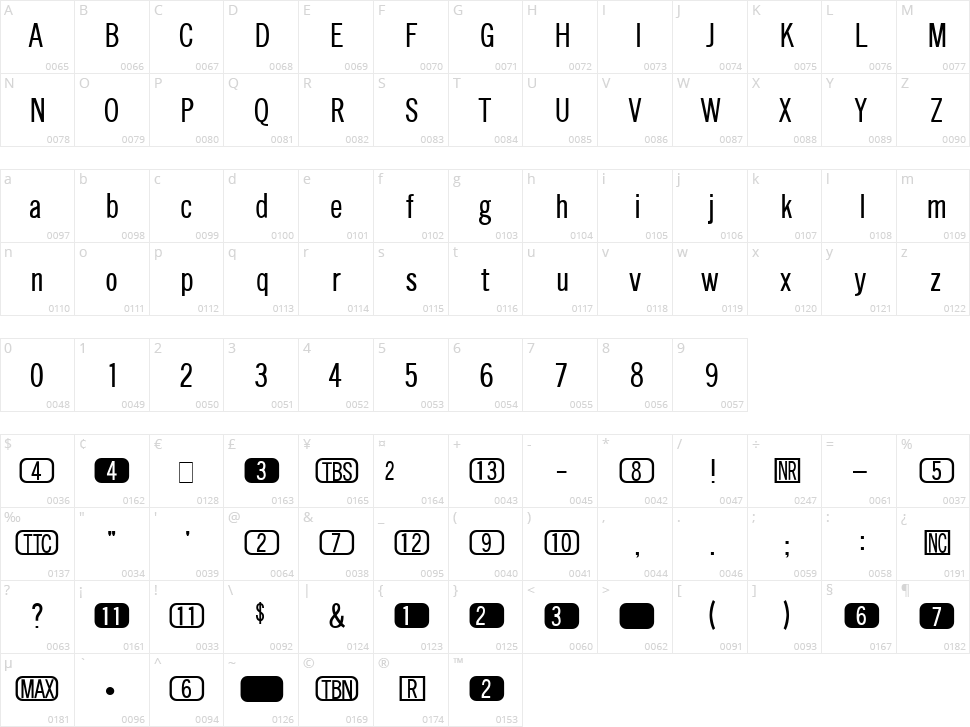
Chanl
CHANNELS is a specialized font, useful for anyone involved in printing TV listings on a regular basis. In addition to containing a very readable condensed font, it includes symbols similar to those you would find on most TV-listings pages in your daily newspaper. I had to rearrange a few keys to accommodate the cable listings the ampersand (&), exclamation mark (!), bullet () and dollar sign ($) characters. I hope this doesnt cause any severe problems.
The following cable stations are supported:
ABBREVIATIONKEYSTROKE+OPTIONSHIFT
American Christian Television SystemACTSYxx
American Movie ClassicsAMCax
Arts & EntertainmentA&EAxx
Black Entertainment TelevisionBETBxx
BravoBRVbx
Cable News & Business NetworkCNBCCxx
Cable News NetworkCNNcx
Cable Satellite Public Affairs Net.C-SPANQxx
Cable TV Network of NJCTNJxx
Cartoon NetworkCNGxx
CinemaxMAXmx
Country Music TelevisionCMTKxx
Court TVCTVExx
Discovery Channel, TheDSCDxx
Disney ChannelDISdx
E! Entertainment TelevisionE!Wxx
ESPNESPNXxx
Family Channel, TheFAMfx
Home Box OfficeHBOhx
Learning Channel, TheTLCqx
LifetimeLIFlx
Madison Square Garden NetworkMSGMxx
Movie Channel, TheTMCtx
Music TelevisionMTVIxx
National Jewish TelevisionNJTjx
NickelodeonNIKNxx
Science-Fiction NetworkSFFxx
ShowtimeSHOsx
SportsChannel AmericaSCAHxx
SportsChannelSCSxx
TBS SuperstationTBSyx
The Nashville NetworkTNN>xx
Travel Channel, TheTTCRxx
Turner Broadcast NetworkTBNgx
Trinity Broadcasting TelevisionTNTTxx
Video Hits OneVH-1vx
Vision Interfaith Satellite NetworkVISCVxx
Weather Channel, TheTWCwx
USA NetworkUSAUxx
In addition, the following symbols/abbreviations are included:
Black and WhiteB&Wcommax
Closed CaptionedCCperiodx
ColorizedCOL
Film Rating Codes:
G G [apostrophe]x
NC NC?xx
NR [No Rating]NR/x
PG PG\x
PG-13 PG-13\xx
RRrx
X Xxx
Hours [used for show lengths]hr.kx
Minutes [used for show lengths]min.semicolonx
Repeat(R)ox
Star [for rating films]zx
Half-star Zxx
Stereo]S[px
Rearranged characters:
Ampersand&\ [back slash]x
Bullet` [accent]
Dollar sign (3/4 size)$\xx
Exclamation mark!/ [slash]
Em dash= [equal sign]
Parentheses appear in the respective bracket locations.
To type hollow television stations, use the OPTION+SHIFT with the top row of numeric keys for stations 2-13. For other stations, use the OPTION+SHIFT with the special keys on the right side of the main keyboard [dash, =, o, p, l, semicolon or apostrophe keys] to type the TV screen with the specific numeral. Immediately after this keystroke, type the second digit of the station by using OPTION+SHIFT+one of the numeric keys. For example, to type the 24 shown above: Type OPTION+SHIFT+= and then OPTION+SHIFT+4 (no space between the two keystrokes). Manual kerning not necessary!
To type solid television stations, use the OPTION key with top row of numeral keys for stations 2-13. For other stations, use the SHIFT key with the special keys on the right side of the main keyboard [open or closed brackets or < keys] to type the TV screen with the specific numeral (1-3). Change the color of your type to WHITE or PAPER and type the second digit of the station by using OPTION+SHIFT+one of the top-row numeric keys. For example, to type the 24 shown above: Type SHIFT+] ; change the color of your type to WHITE; then OPTION+SHIFT+4 (again, no space between the two keystrokes). Make sure you change the color of your type back to BLACK.